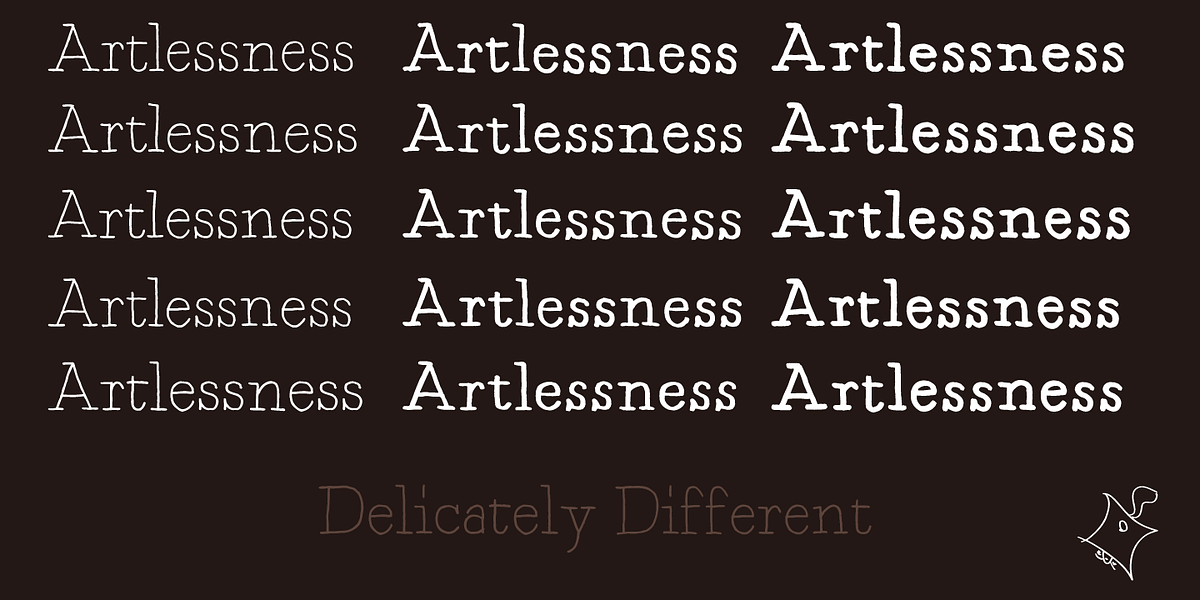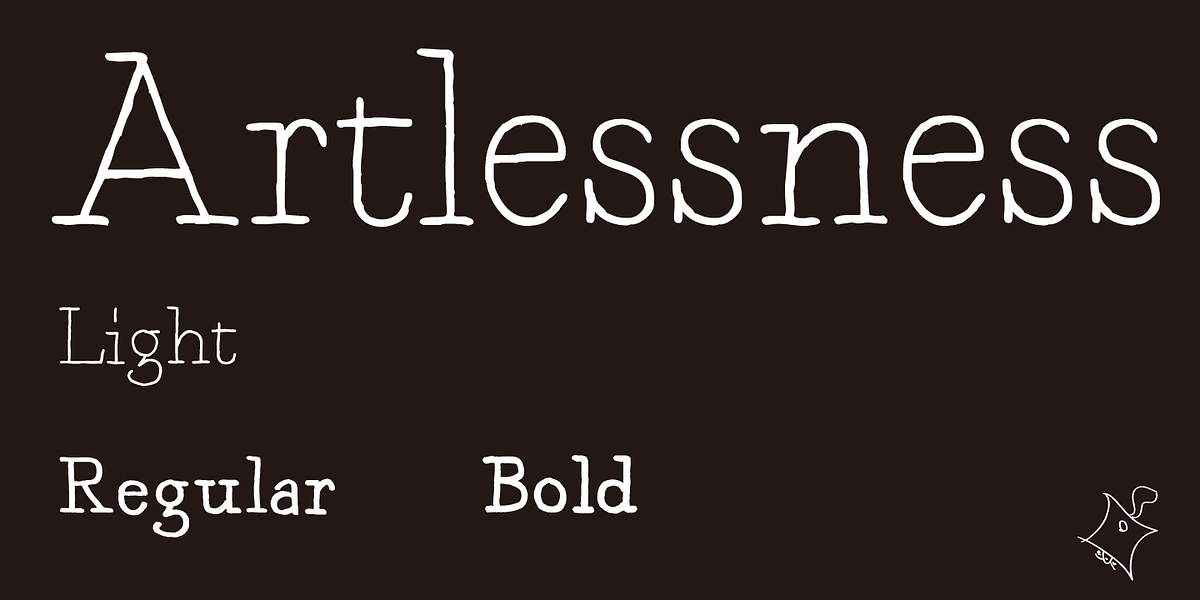
Artlessness
This font was created by tracing letters from an alphabet learning book with a technical pen. The designer also included freehand-drawn variations of letters as a Stylistic Set. This results in a rough and handmade aesthetic that evokes a vintage feel.